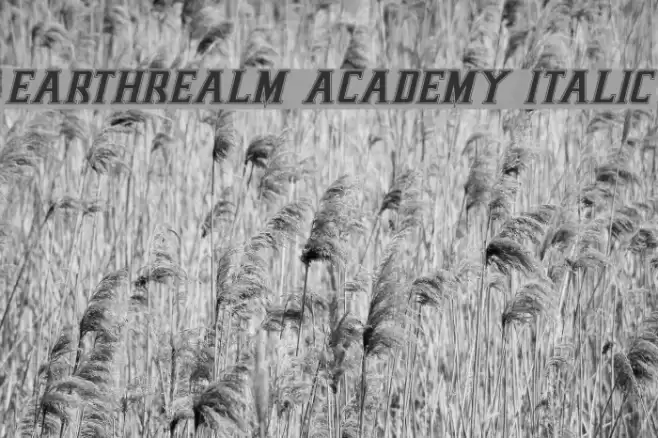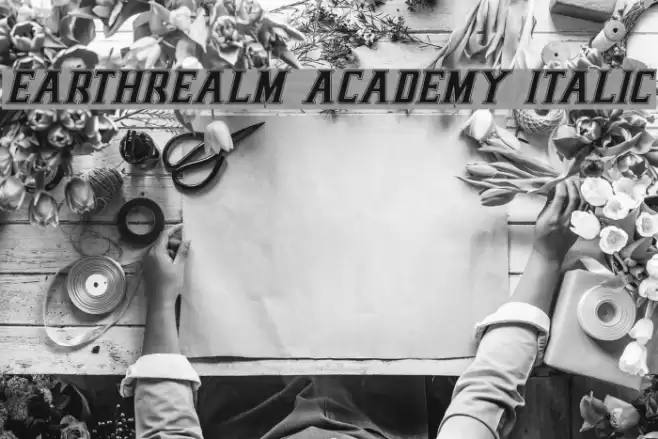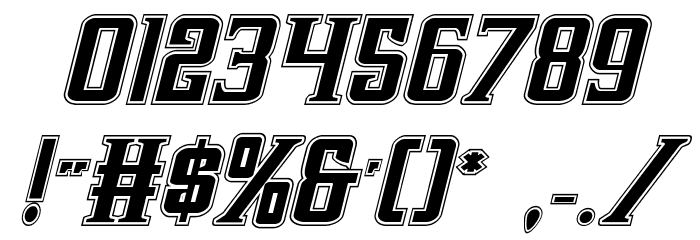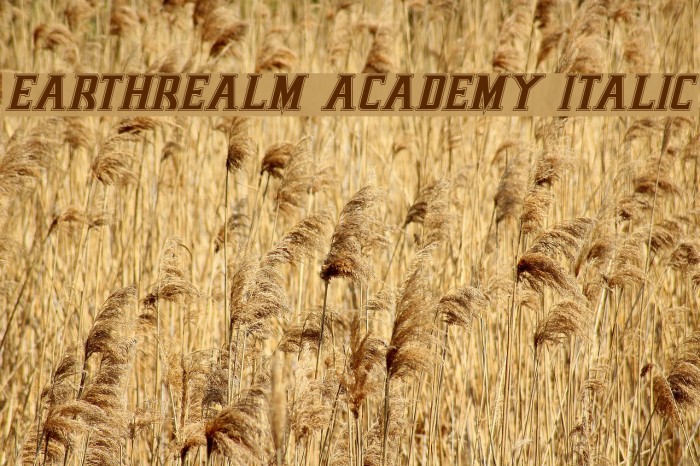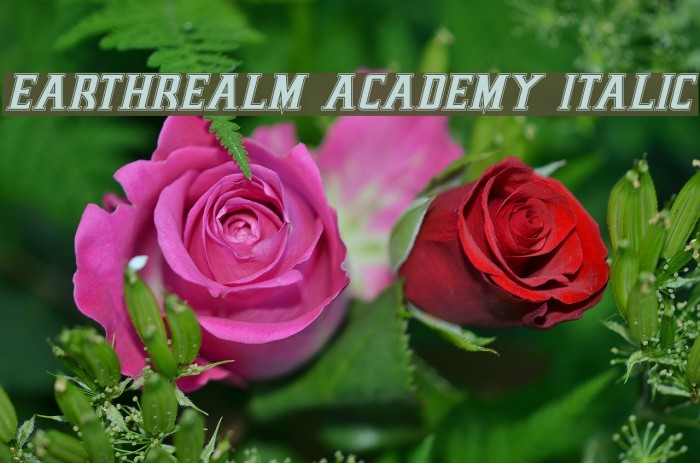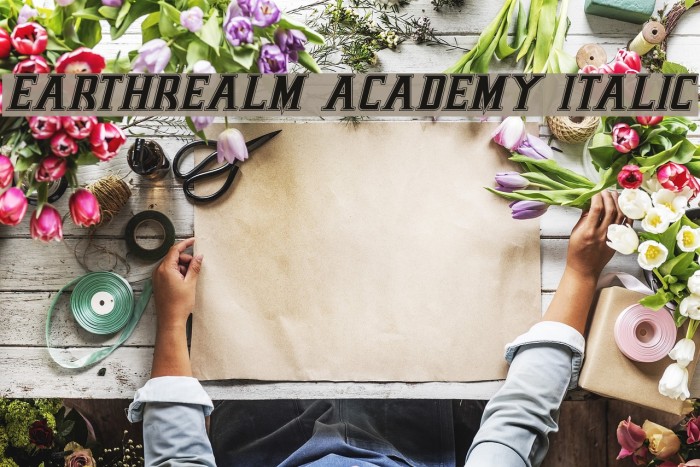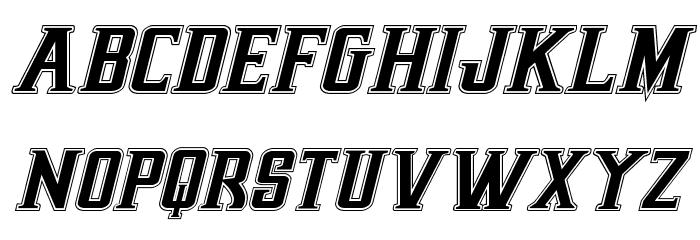
Earthrealm Academy Italic Font
Earthrealm Academy Italic Description
This font features a bold, italicized style with a strong presence. The characters are outlined, giving them a three-dimensional effect that stands out. The uppercase letters are sharp and angular, with a slight slant to the right, enhancing the italicized look. The numbers and special characters maintain the same bold and outlined style, ensuring consistency across all glyphs. This font's design is reminiscent of sports or collegiate themes, making it ideal for projects that require a dynamic and energetic feel.
Bold, italicized font with outlined, angular characters ideal for dynamic designs from Uncategorized fonts.
- Proposed Projects: Perfect for sports team logos, event posters, and merchandise branding.